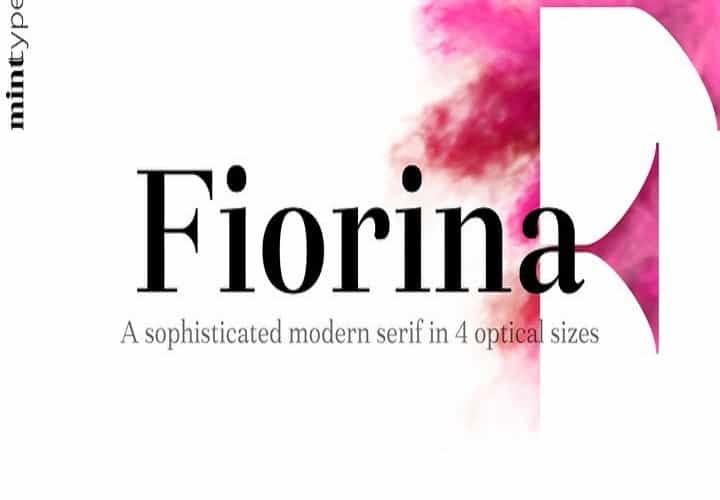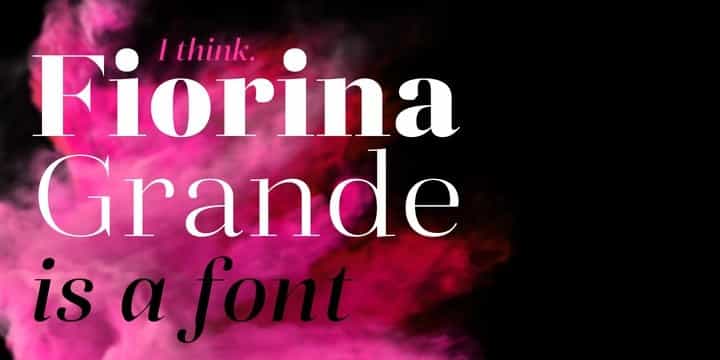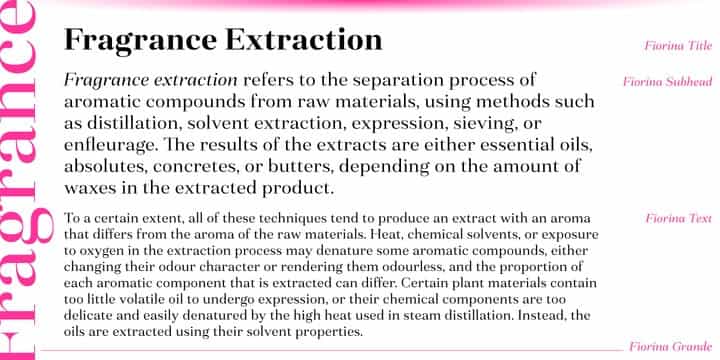
Fiorina is an innovative and contemporary Doone style serif font featuring 72 fonts. Available in four optical sizes–Text with moderate contrast to Grande with higher levels–each typeface comes with nine weights and sophisticated italics – Fiorina’s diverse style choices make it perfect for magazines.